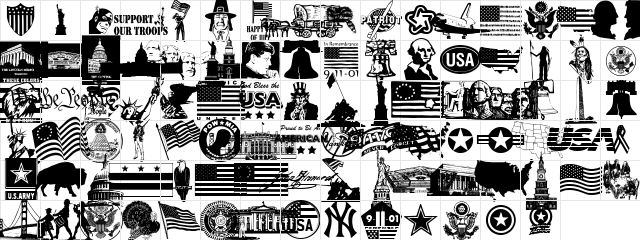
4th of July Reflections Regular
Design Context for 4th of July Reflections Typeface
4th of July Reflections is a composed and adaptable typeface that performs quietly and consistently across a wide range of design contexts.